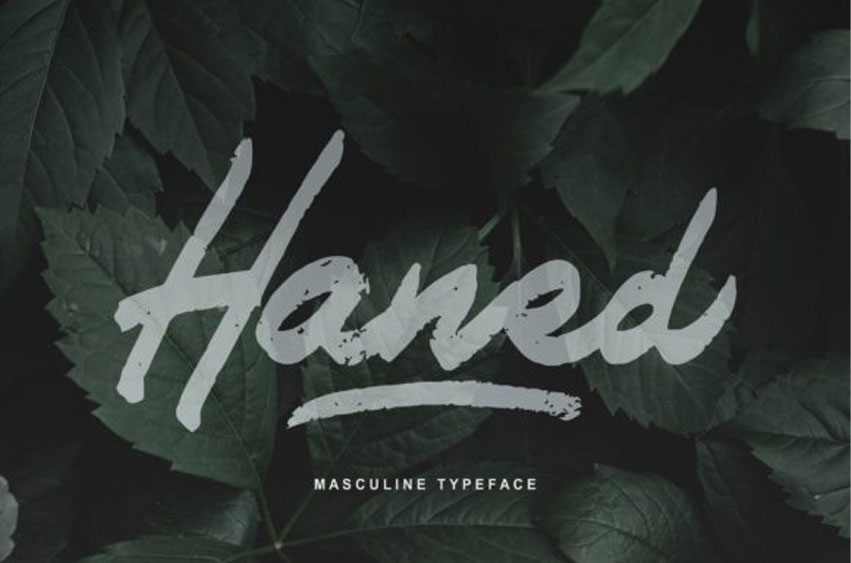
Haned Font
Haned Font is a strong and cool script font with a unique style. Get inspired by its unique charm! T
his font is well-suited for a variety of contexts, such as print design, promotional materials, or magazine layouts.